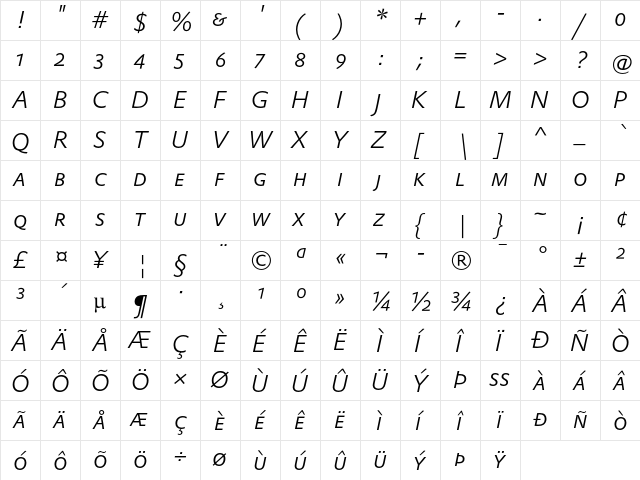
DTLProkyonTCapsLight Italic Font Preview
Design Context for DTLProkyonTCapsLight Typeface
DTLProkyonTCapsLight takes a measured approach to typography — its balanced proportions and neutral character make it a reliable workhorse for both digital and print work. Its italic angle brings a sense of urgency and motion to the letterforms. The delicate stroke weight brings airiness and refinement to layouts.
Pro Tip: Try DTLProkyonTCapsLight for annotation and caption copy alongside an upright companion — the contrast in angle creates a dynamic but ordered typographic system.